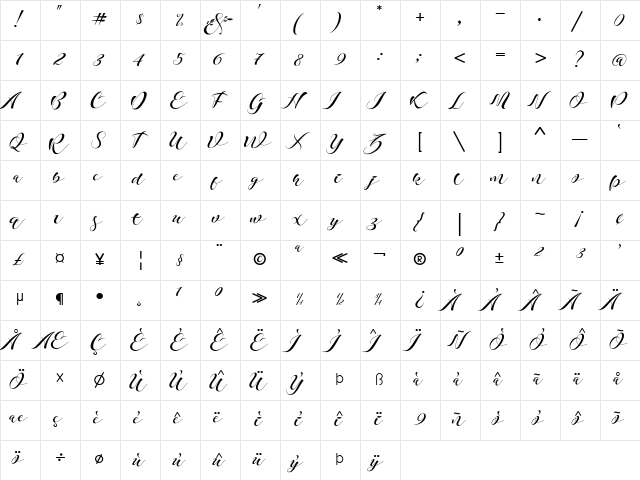
Khansa Regular
| Foundry | Afredo.fk |
| Designer | Zulfikar Ali |
Design Context for Khansa Typeface
Khansa is a composed and adaptable typeface that performs quietly and consistently across a wide range of design contexts.